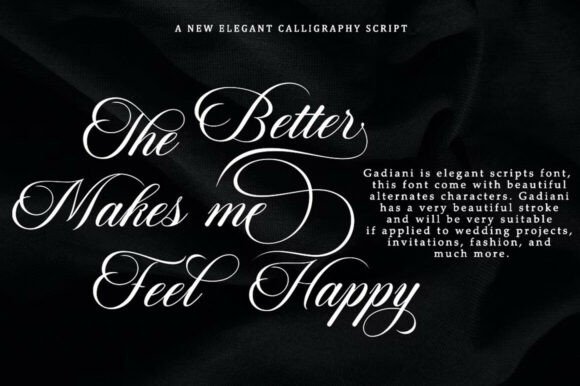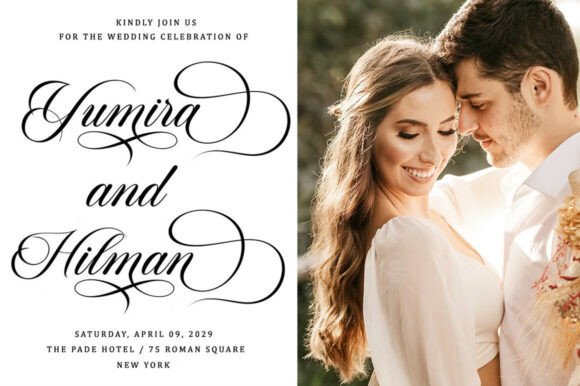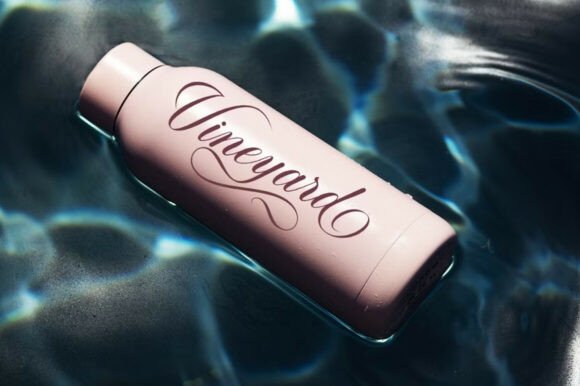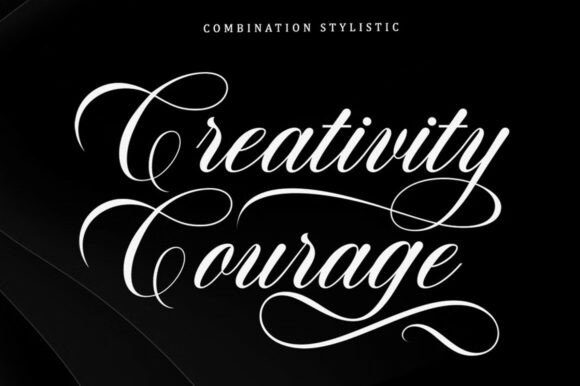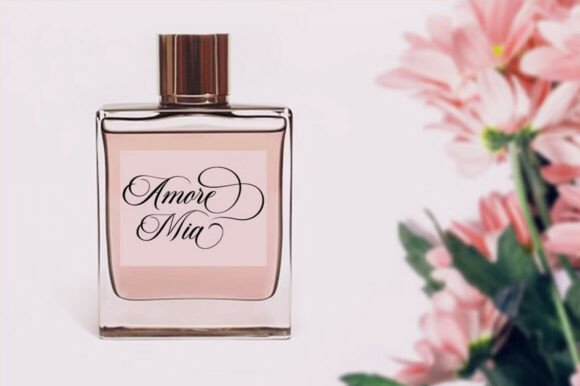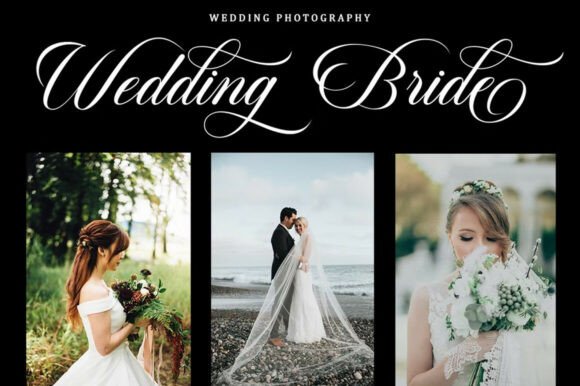
Introducing Gadiani Font: Elevate Your Designs with Elegance and Sophistication
Are you on the hunt for the perfect font to elevate your design projects? Look no further! Gadiani Font is here to transform your creations with its elegant and sophisticated charm. This beautiful handwritten font is designed to cater to a wide range of design needs, making it an ideal choice for designers and crafters alike.
What Makes Gadiani Font Special?
Gadiani Font is crafted with precision and passion to bring you a truly unique and versatile typeface. Its elegant strokes and beautiful handwritten touch make it perfect for a variety of design projects, including:
- Invitation cards: Add a touch of sophistication to your wedding invitations, birthday cards, or any other special occasion.
- Product logos: Create a lasting impression with a beautiful and elegant logo that reflects your brand’s personality.
- Food brand logos: Give your food brand a touch of warmth and coziness with Gadiani Font.
- Thank you cards: Express your gratitude with style and elegance.
- Business card logos: Make a professional statement with a beautifully designed business card.
Features of Gadiani Font
Gadiani Font comes with a comprehensive set of features that make it a valuable addition to your design toolkit. With Gadiani Font, you’ll get:
- Uppercase and lowercase letters
- Alternative characters to give you more design flexibility
- Ligatures to add a touch of sophistication to your designs
- Punctuation marks to ensure your text is perfectly formatted
- Numbers to help you create beautiful and cohesive designs
- Multilingual support to cater to a global audience
Design Possibilities with Gadiani Font
Gadiani Font is incredibly versatile and can be used to create a wide range of designs. Whether you’re looking to create:
- Cute and girly handwritten letters
- Elegant and sophisticated logos
- Beautiful and cohesive branding materials
- Stunning and eye-catching posters
With Gadiani Font, the possibilities are endless! The font’s flexibility and elegance make it an excellent choice for designers and crafters who want to add a personal touch to their designs.
In conclusion, Gadiani Font is an exceptional addition to any design project. Its elegance, sophistication, and versatility make it a valuable asset for designers and crafters. With its comprehensive set of features and multilingual support, Gadiani Font is sure to become a favorite in your design toolkit.